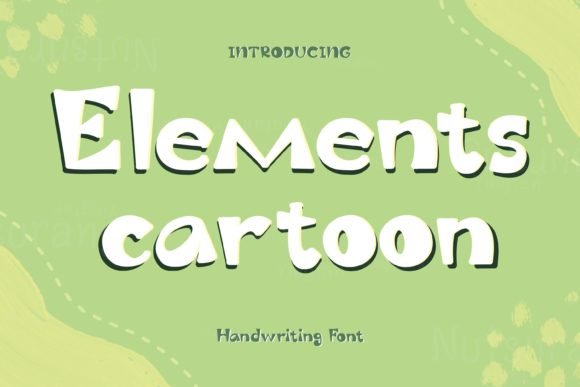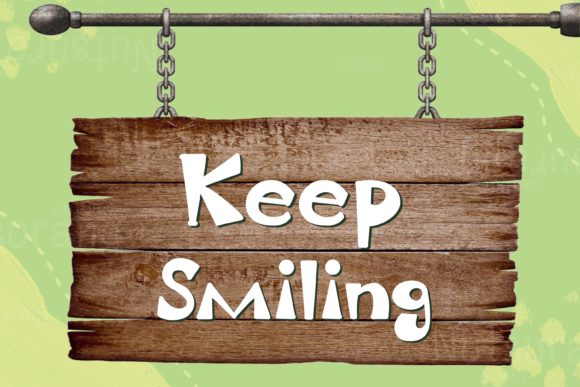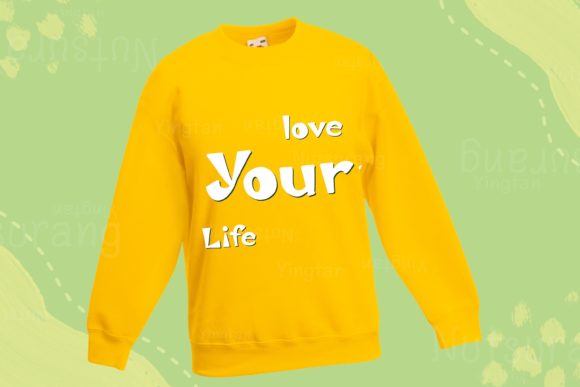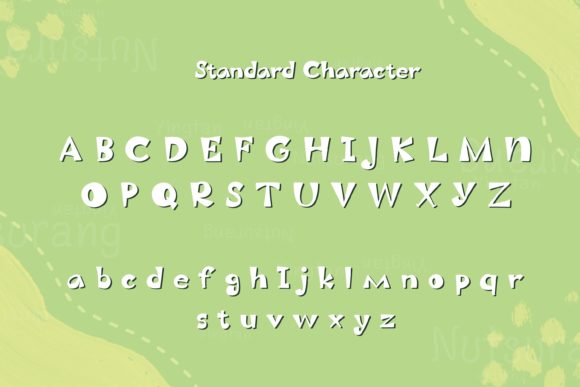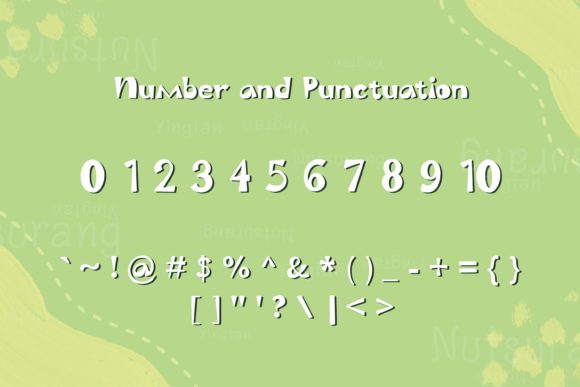
Unleashing Your Inner Creativity with Elements Cartoon Font
Do you ever find yourself rummaging through your craft supplies, searching for the perfect combination of colors and fonts to bring your ideas to life? We’ve all been there – the excitement of brainstorming a new project, only to be held back by the fear of not having the right tools. But what if I told you there’s a font that can elevate your crafting ideas to the next level?
Meet Elements Cartoon Font, a fun and playful display font designed to add a touch of whimsy to your projects. From cards to branding, labels, and more, this font is perfect for anyone looking to add a dash of personality to their work. Whether you’re a seasoned designer or a crafty newbie, Elements Cartoon Font is sure to become your go-to companion for all your creative endeavors.
Key Features of Elements Cartoon Font
- Unique Characteristics: Distinctive, hand-drawn style with bold lines and playful shapes, ideal for creating a fun and approachable atmosphere
- Font Weight: Offers a range of font weights, from light to bold, allowing for versatility in design applications
Elements Cartoon Font Review
Overall, I think Elements Cartoon Font is a fun and playful font that can add a touch of whimsy to your designs. ✨ The bold lines and rounded edges give it a friendly, approachable feel that’s perfect for kids’ content, cartoons, or any project that needs a lighthearted vibe.
- Highly customizable: With over 100 glyphs, you can mix and match different elements to create unique combinations.
- Great for hand-drawn look: The font’s imperfections and rough edges give it a hand-drawn feel that’s perfect for creating a more personal, human touch.
- Fun and playful: As I mentioned earlier, this font is perfect for projects that need a lighthearted, playful vibe.
- Not suitable for formal or professional content: The font’s playful, cartoonish style may not be suitable for formal or professional projects.
- Can be overwhelming: With so many glyphs and customization options, it can be easy to get carried away and create a design that’s too busy or overwhelming.
Overall, I think Elements Cartoon Font is a great choice for designers who want to add a touch of whimsy to their projects. With its high level of customization and fun, playful style, it’s perfect for kids’ content, cartoons, or any project that needs a lighthearted vibe.
Elements Cartoon Font: A Practical Application Guide
The Elements Cartoon Font is ideal for creating playful and whimsical designs, such as:
- Webcomic and cartoon designs
- Marketing materials and advertising
Remember to experiment with different font sizes, colors, and effects to get the most out of this versatile font.
Alternatives to Elements Cartoon Font
Comic Sans MS is a casual, cursive font that is often used in informal settings such as blogs, social media, and children’s materials. It is known for its playful and friendly feel. Compared to Elements Cartoon Font, Comic Sans MS is more widely recognized and has a more distinct cursive style, but it may be perceived as less sophisticated in some contexts.
Pacifico is a modern, cursive font that is often used in digital and print media. It has a relaxed, beachy feel and is suitable for use in advertising, branding, and web design. Compared to Elements Cartoon Font, Pacifico is more elegant and refined, with a softer, more rounded feel, but it may not be as playful or whimsical.
Great Vibes is a hand-drawn, script font that is often used in creative and artistic projects. It has a lively, energetic feel and is suitable for use in advertising, branding, and web design. Compared to Elements Cartoon Font, Great Vibes is more expressive and dynamic, with a more unique, hand-drawn style, but it may be more challenging to read in certain contexts.